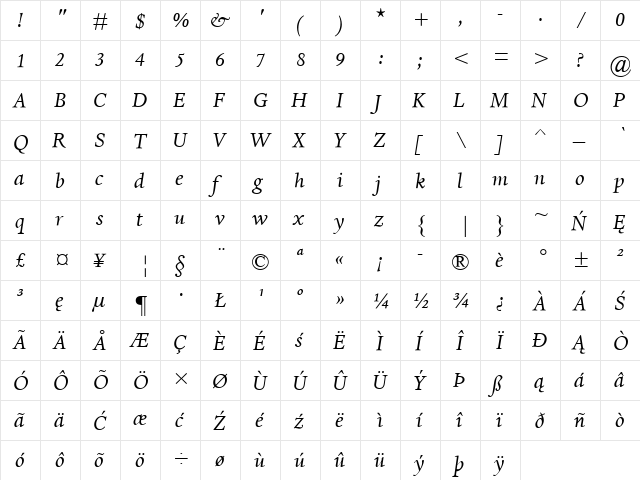
Dante Medium Italic
Design Context for Dante Typeface
Dante offers clean, dependable letterforms without strong stylistic allegiance, making it a practical choice for designers who need flexibility. Its italic angle brings a sense of urgency and motion to the letterforms.
Pro Tip: Try Dante for annotation and caption copy alongside an upright companion — the contrast in angle creates a dynamic but ordered typographic system.